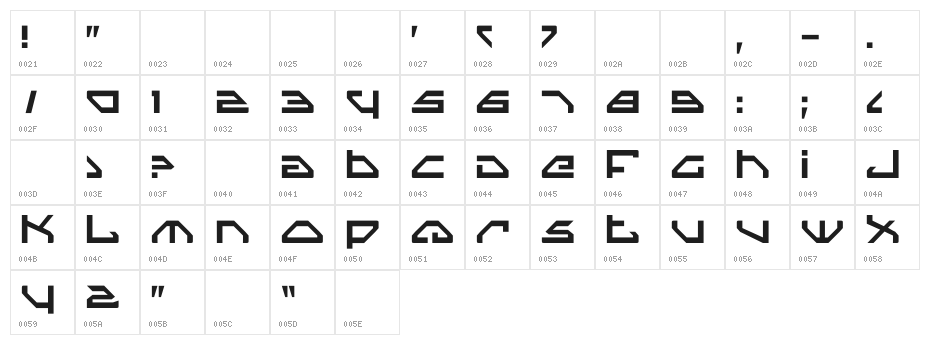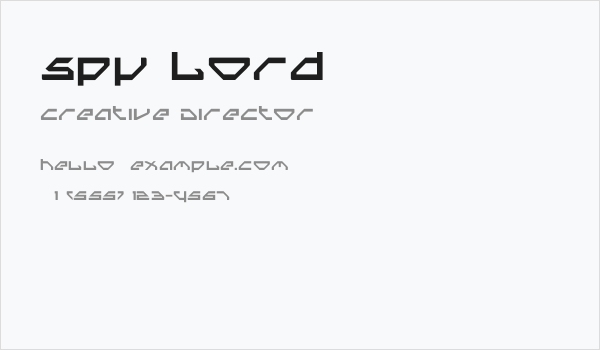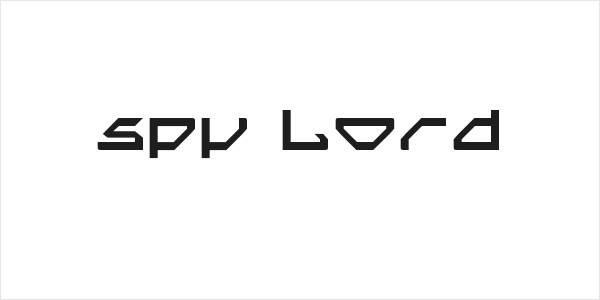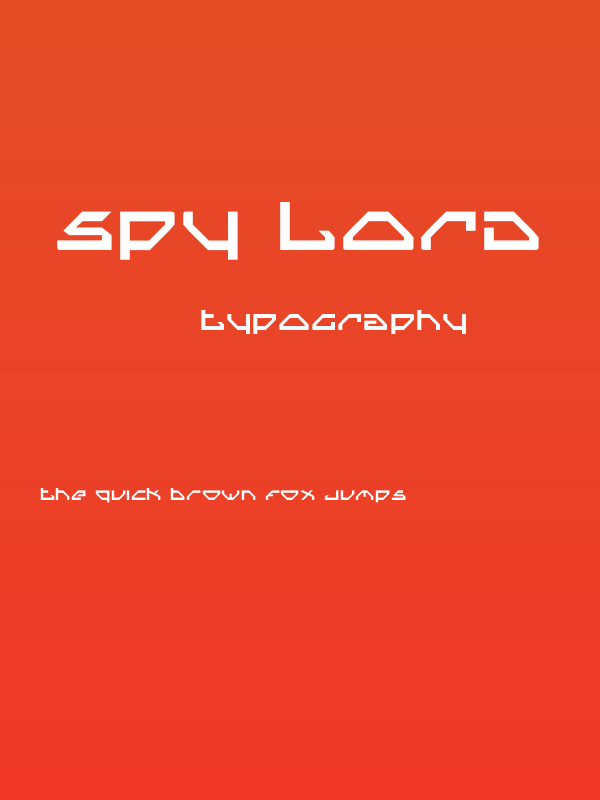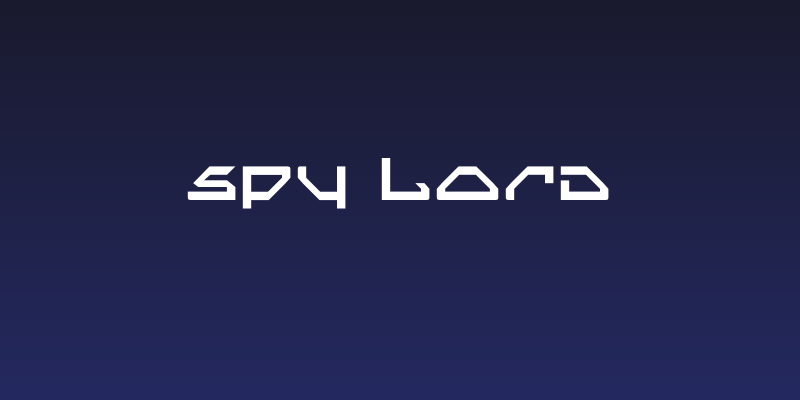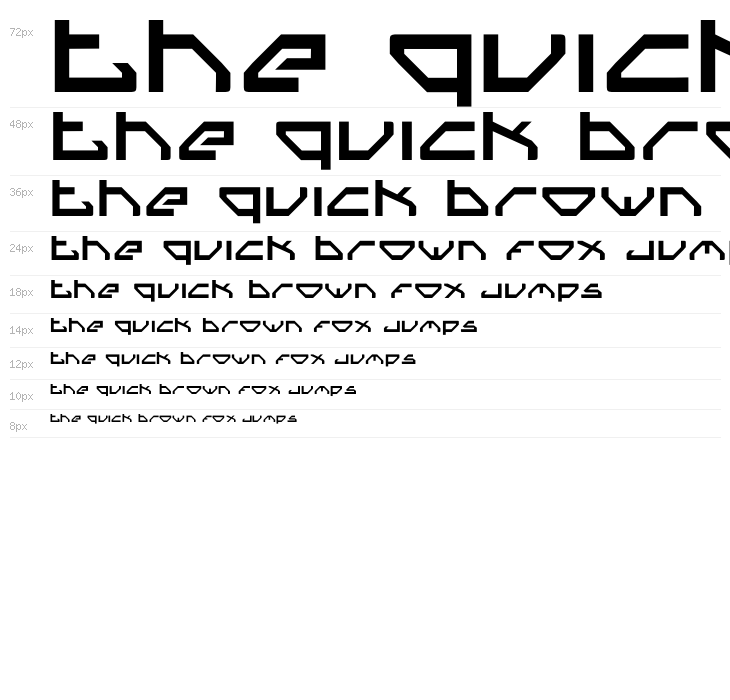
Spy Lord Font
Spy Lord Description
This font features a futuristic and angular design, characterized by sharp edges and geometric shapes. The letters are constructed with a consistent thickness, giving a uniform appearance across all characters. The uppercase and lowercase letters maintain a similar style, with slight variations to distinguish them. Numbers and special characters follow the same design principles, ensuring a cohesive look. The font's unique style makes it stand out, ideal for projects that require a modern and edgy aesthetic.
| Proposed Projects | Ideal for sci-fi themed designs, video game interfaces, technology branding, and modern posters. |